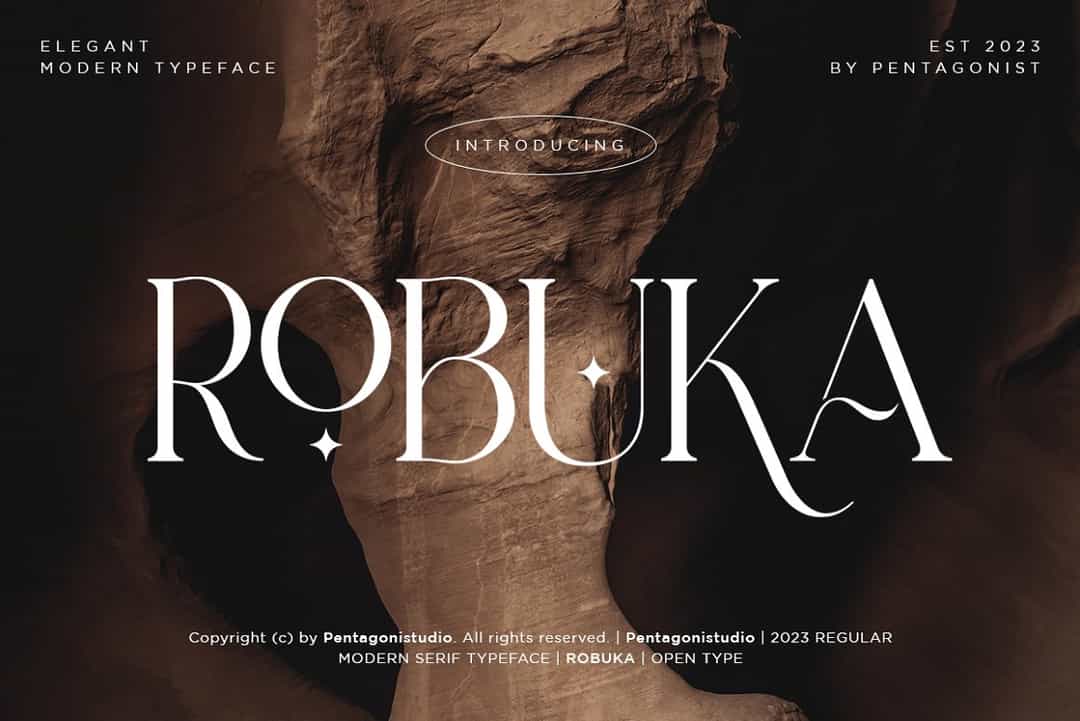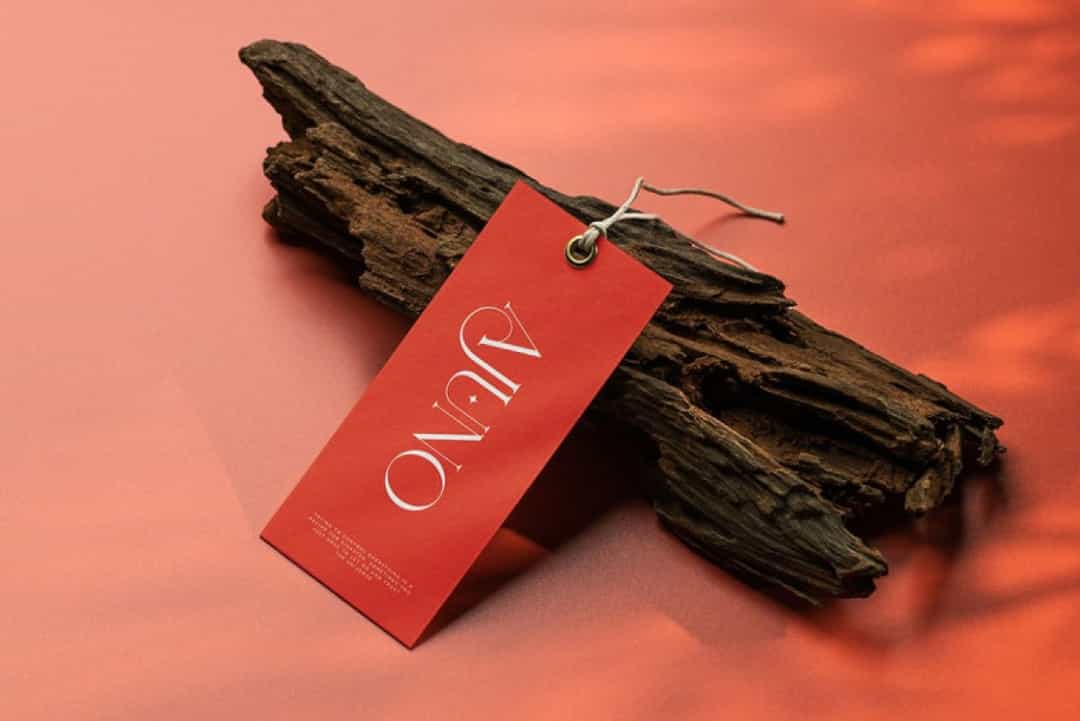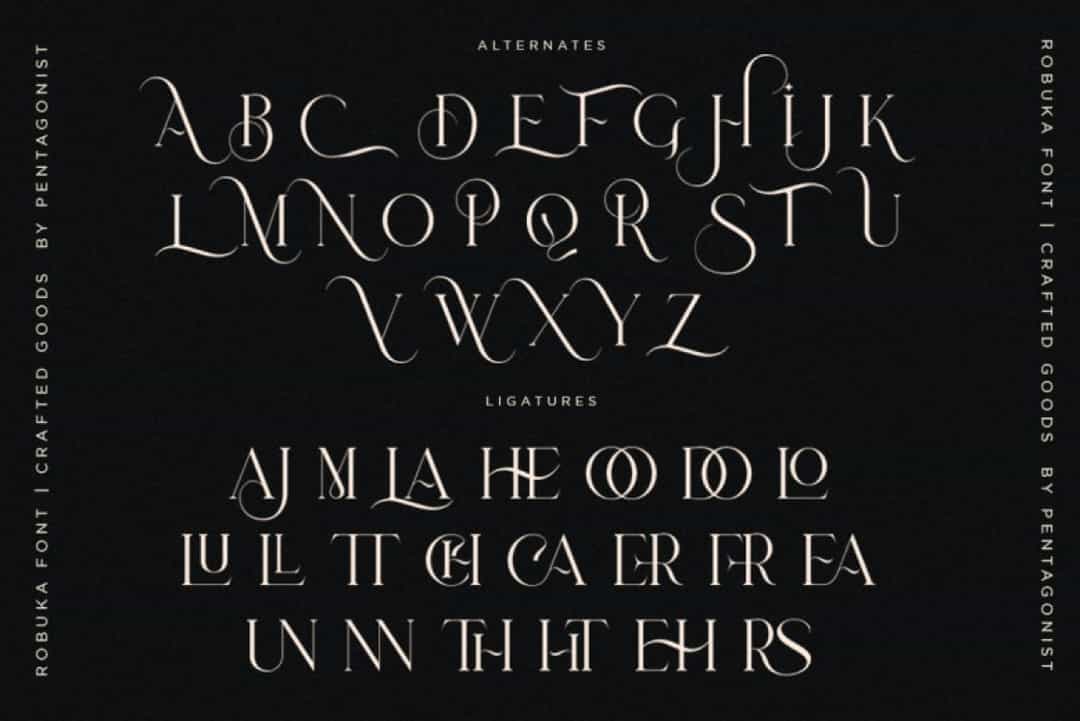
Robuka is an elegant contemporary serif font featuring stylized alternative fonts and ligatures, making it perfect for wedding invitations, retro designs books, newspapers and brand name branding projects such as albums quotes etc.